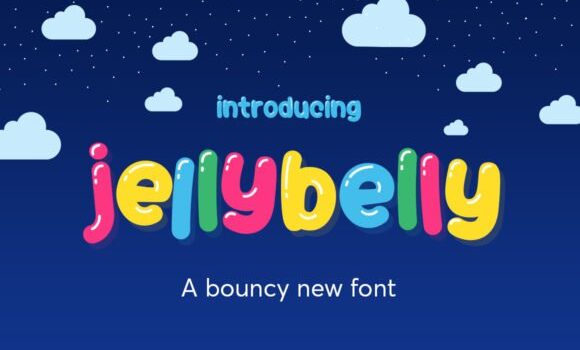
jellybelly
Jellybelly Font – Free Download Introduction to Jellybelly Font Jellybelly is a jiggly, wiggly and fabulous font from salt and pepper designs. 📸 Preview Gallery 5 images 📌 Product Name Jellybelly Font 👤 Author Salt and Pepper Fonts 📂 Category